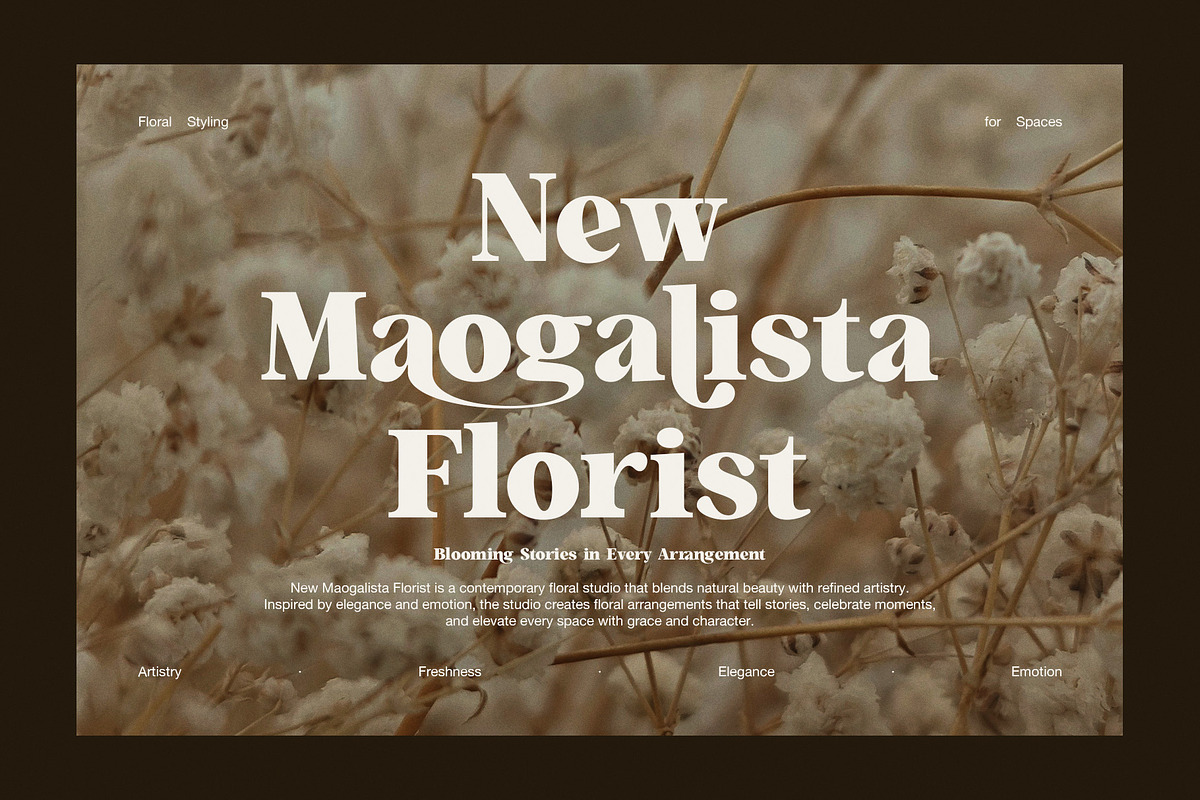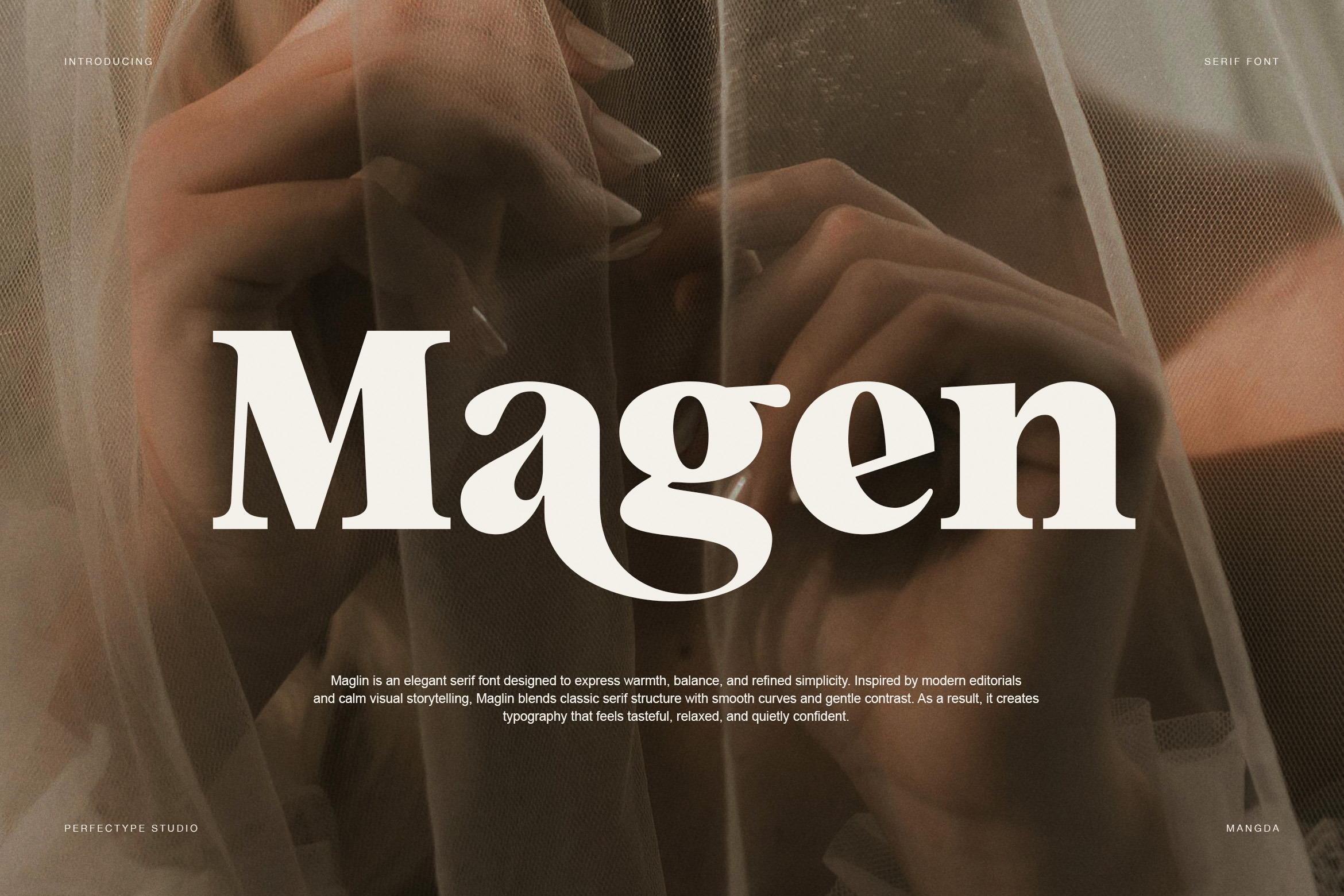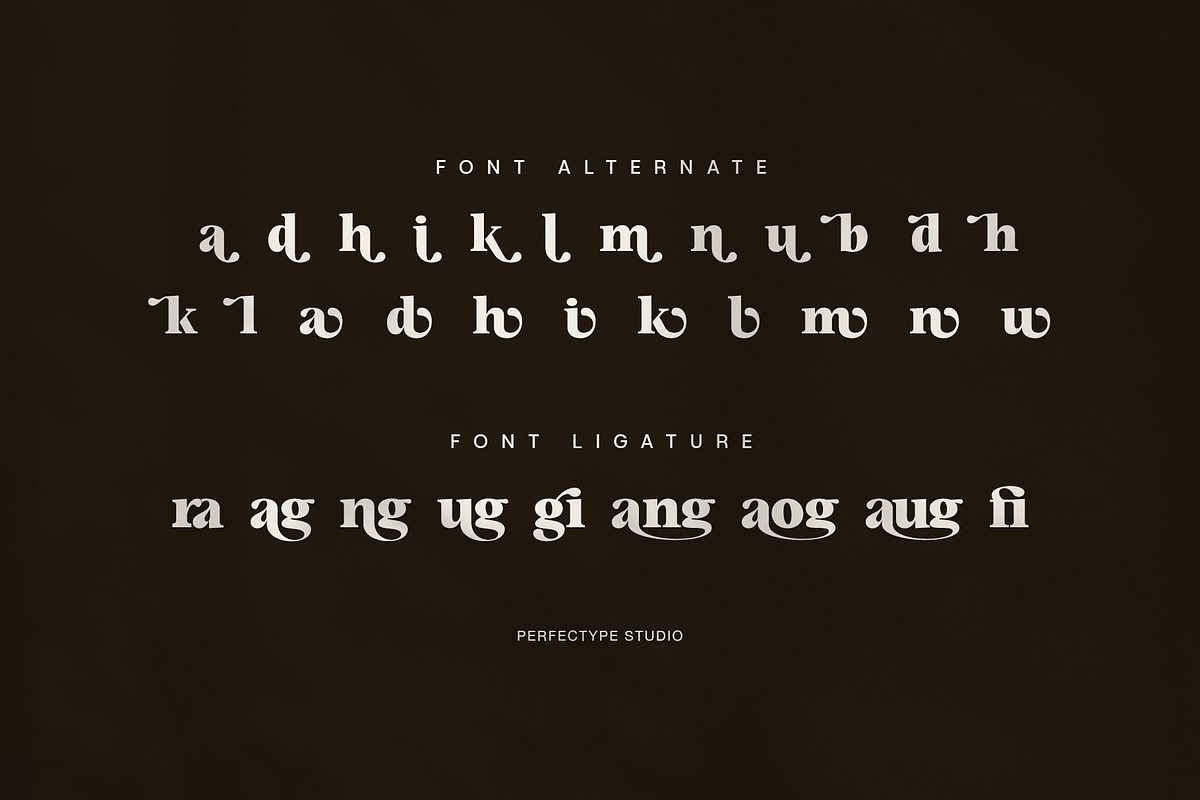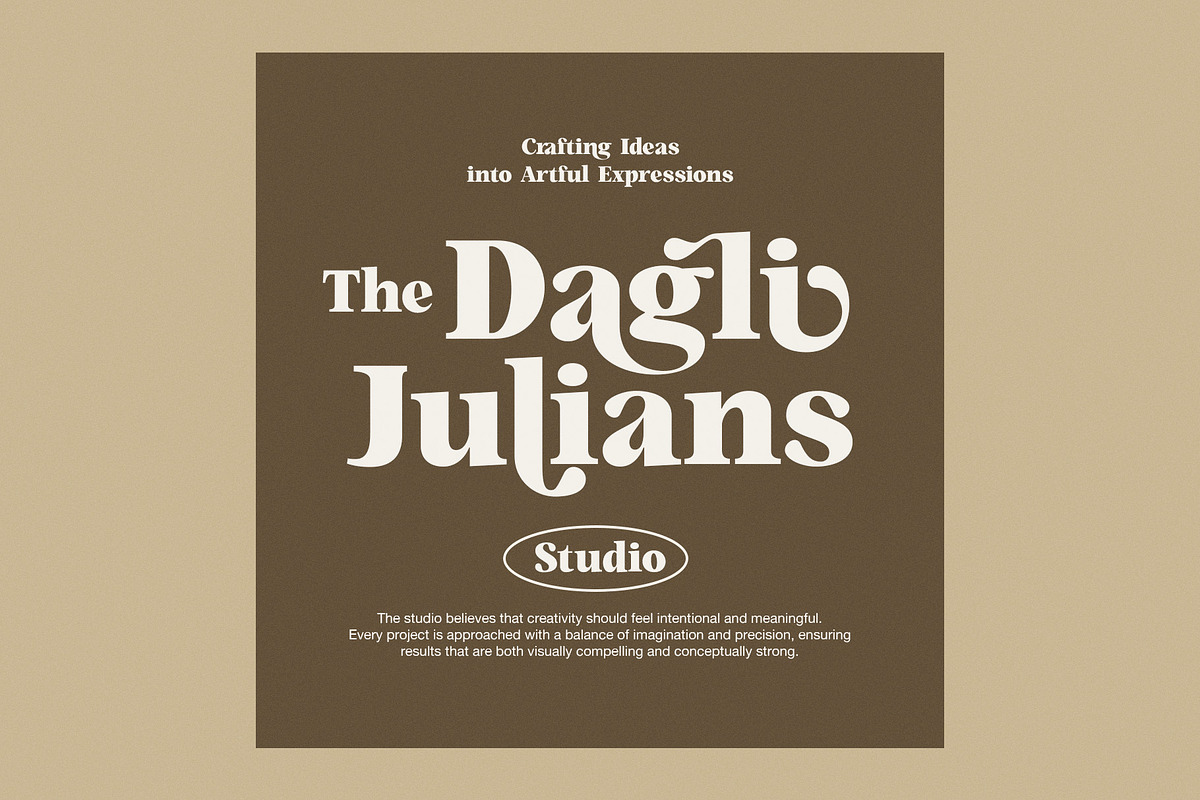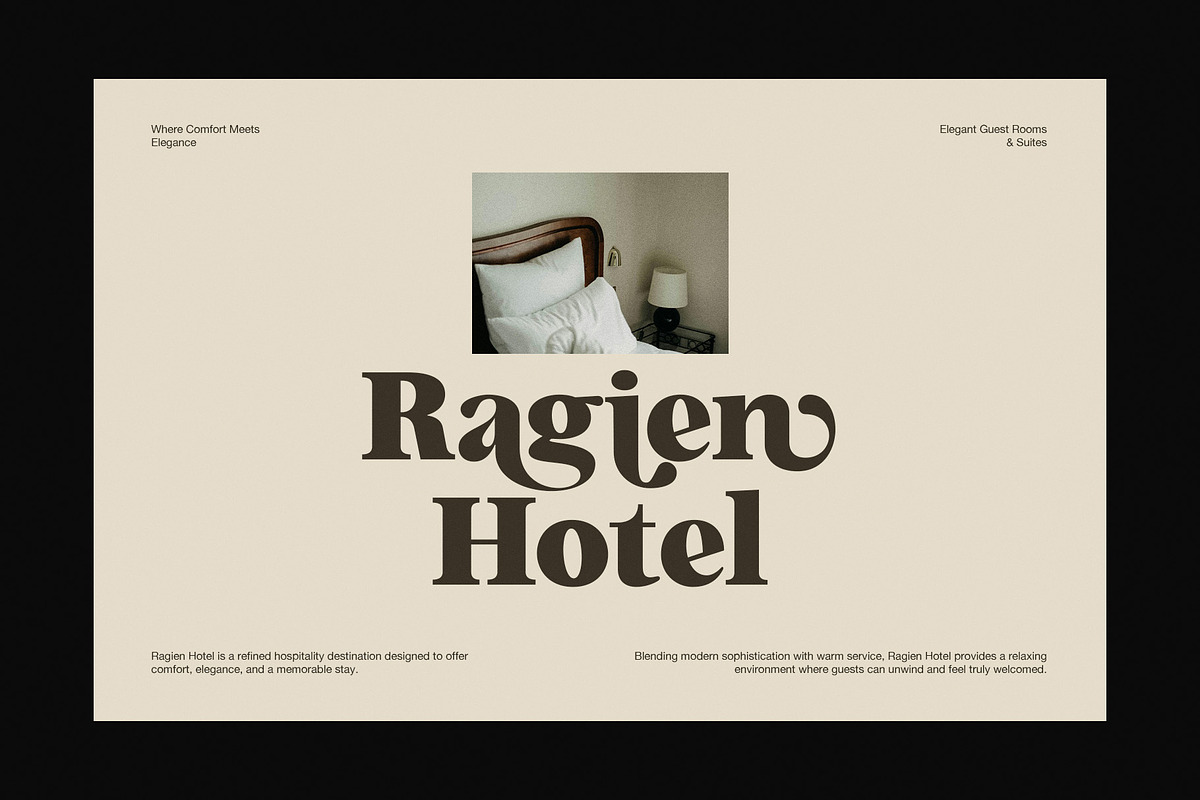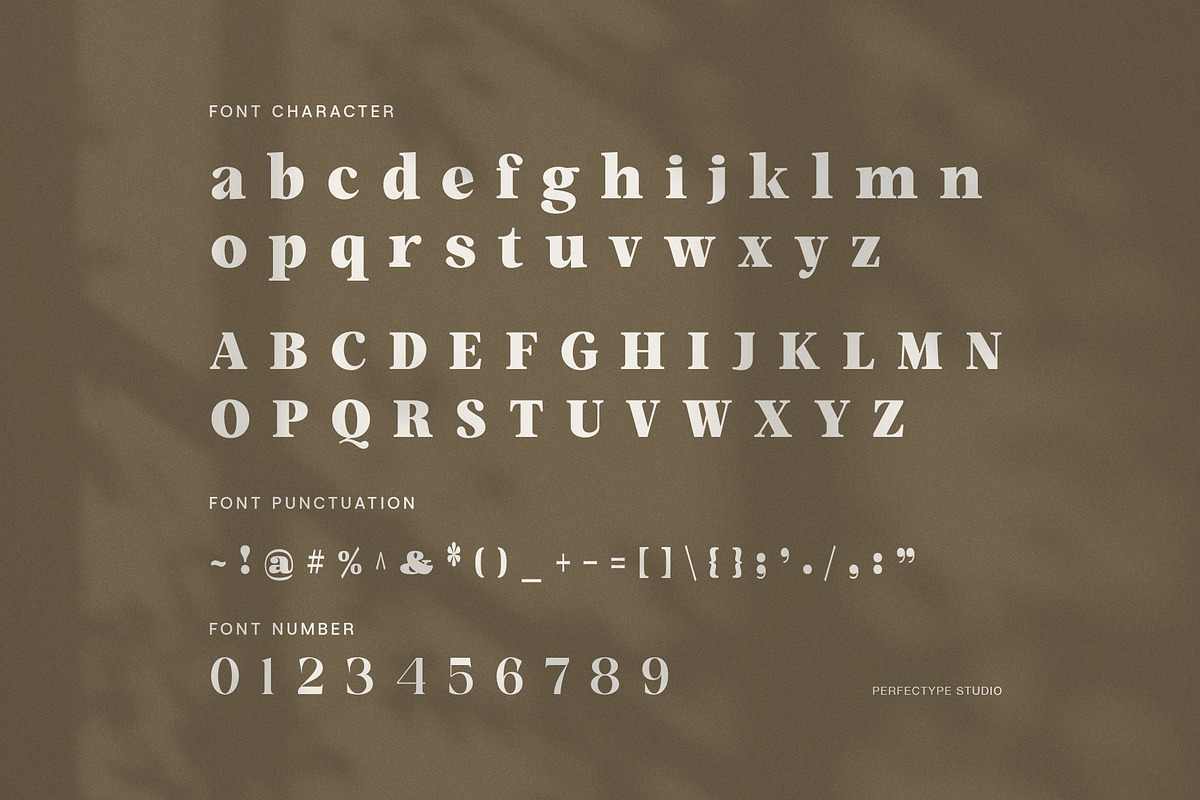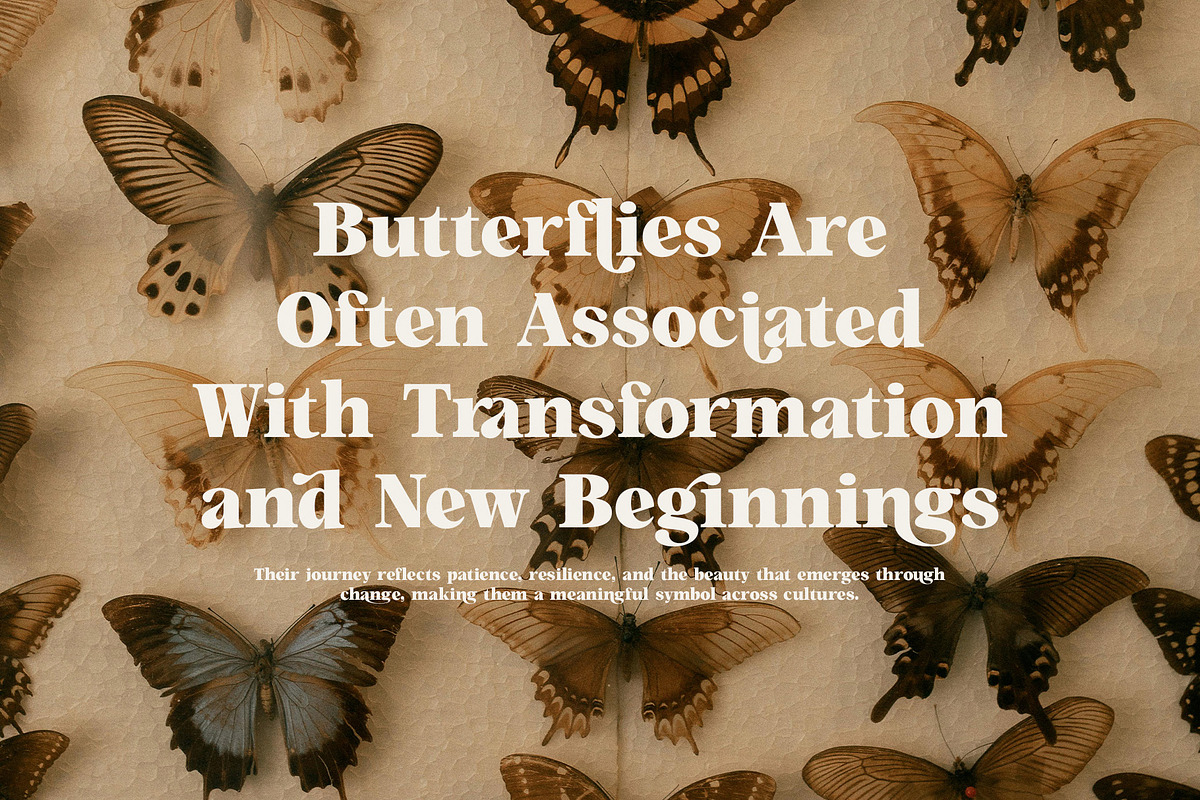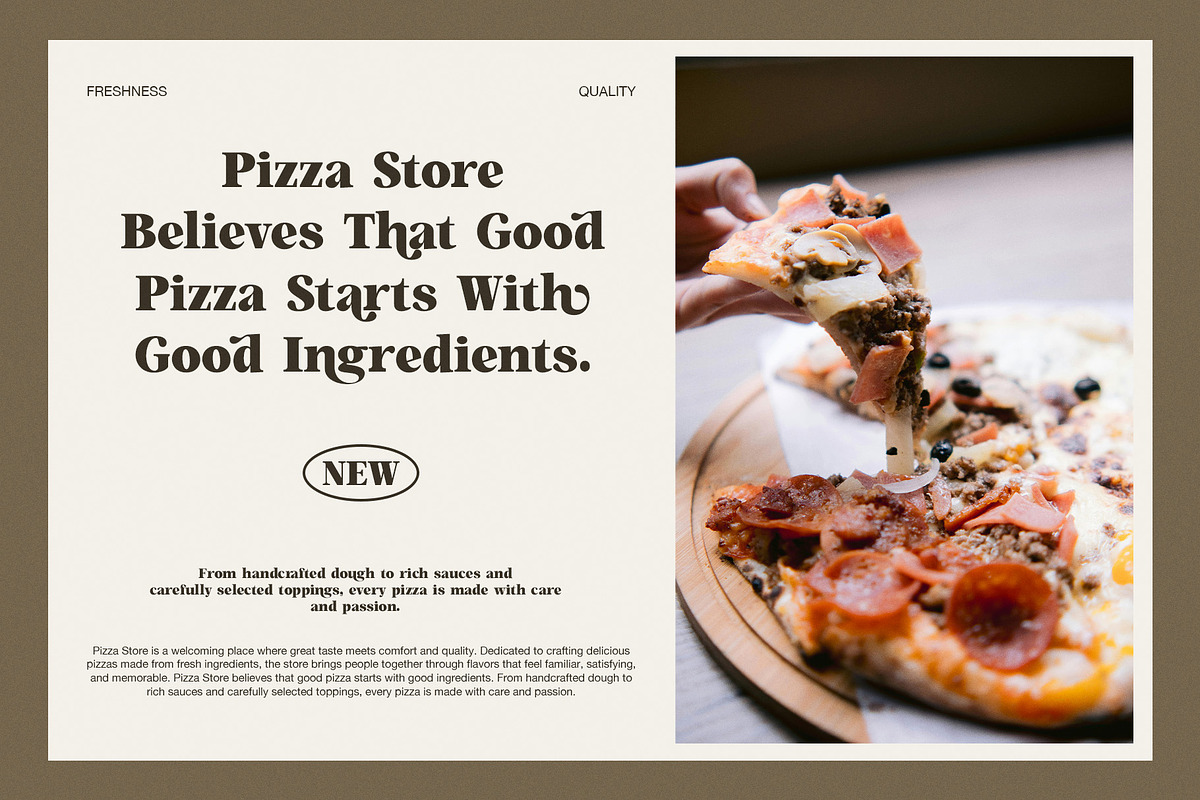
Magen Elegant Classic Serif Font
Magen is an elegant classic serif font designed to express warmth, artistry, and refined balance. From the first look, this font feels graceful and thoughtful. Therefore, it is well suited for designers who want typography that feels expressive yet calm.
Magen blends traditional serif foundations with soft curves and gentle contrast. As a result, each letterform feels natural and inviting. The shapes appear balanced, while the flowing details add character without distraction. Moreover, the overall structure remains clean, which helps the font feel timeless and composed.
Because Magen is easy to read, it works well in both large headlines and supporting text. In addition, the spacing is carefully refined to maintain clarity across print and digital designs. This makes the font reliable for professional layouts that require both beauty and function.
Magen includes stylistic alternates and elegant ligatures. These features allow designers to create variety while preserving harmony. Furthermore, the ligatures improve word flow, especially in editorial titles and branding projects. The alternates add subtle personality, helping each design feel more personal and crafted.
Another strength of Magen is its versatility. While it feels artistic and classic, it also adapts well to modern concepts. Therefore, it is suitable for fashion branding, floral studios, restaurants, hotels, and lifestyle projects. At the same time, it works beautifully for quotes, posters, and storytelling visuals.
Magen pairs easily with clean sans-serif fonts. Consequently, designers can build clear hierarchy without visual noise. In addition, the font holds its elegance at larger sizes, which makes it ideal for hero text and signature headlines.
Key Design Features
Elegant classic serif style
Soft curves with balanced contrast
Refined alternates and ligatures
Clear readability for print and screen
Timeless and artistic appearance
Ideal Use Cases
Branding and logo design
Editorial and magazine layouts
Floral and lifestyle projects
Restaurants and hospitality visuals
Quotes, posters, and headlines
Overall, Magen is a serif font that brings elegance, emotion, and clarity to every design. It supports storytelling while adding a refined visual presence.